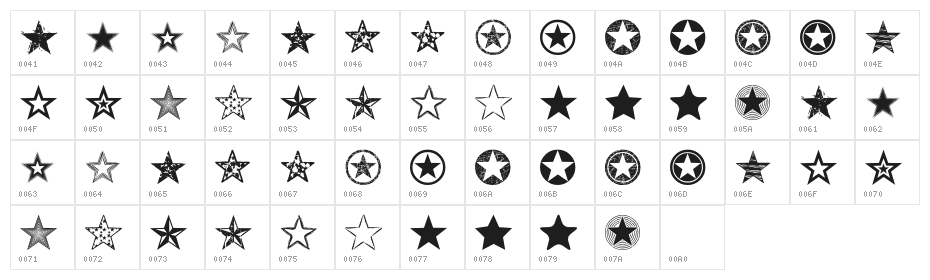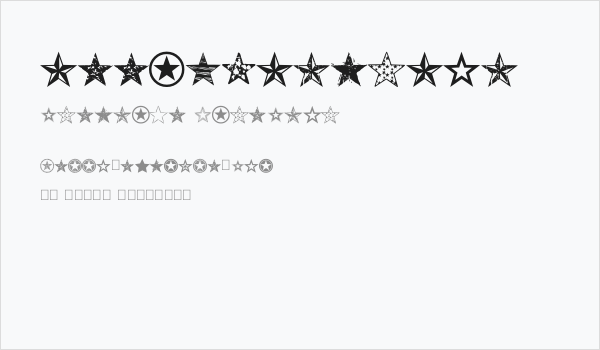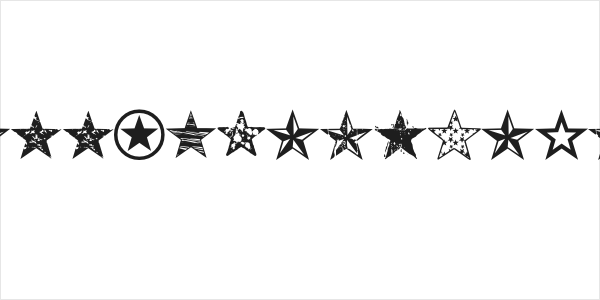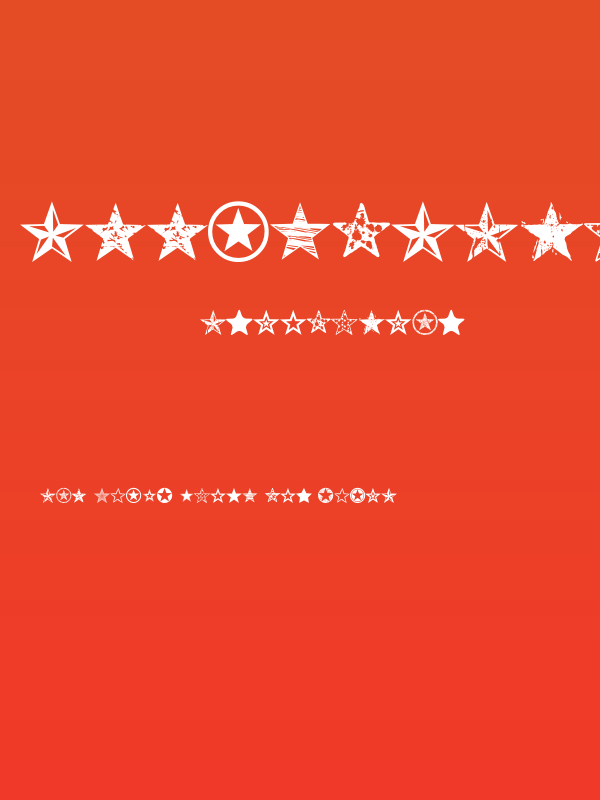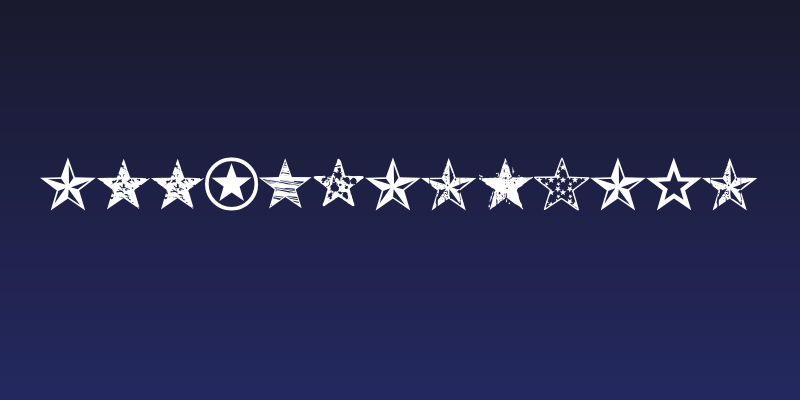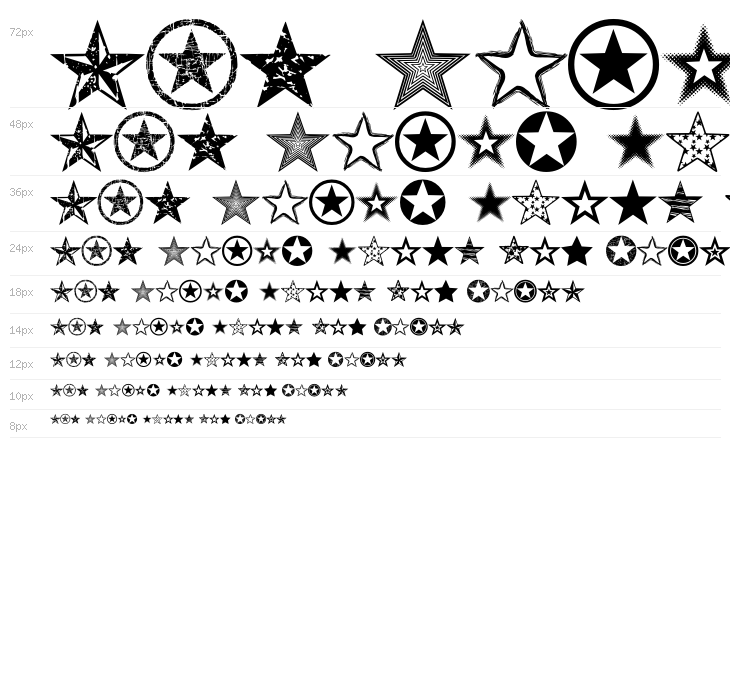
SeeingStarsOT Font
SeeingStarsOT Description
A decorative dingbat font featuring a variety of star shapes and patterns, including outlined, filled, textured, and circled stars, as well as simple outlined squares for numbers and symbols.
| Overall Style | Decorative, Playful |
| Use Case | Icons, Borders, Decorative elements |
| Proposed Projects | Party invitations, certificates, scrapbooking, educational materials, decorative borders, rating systems. |